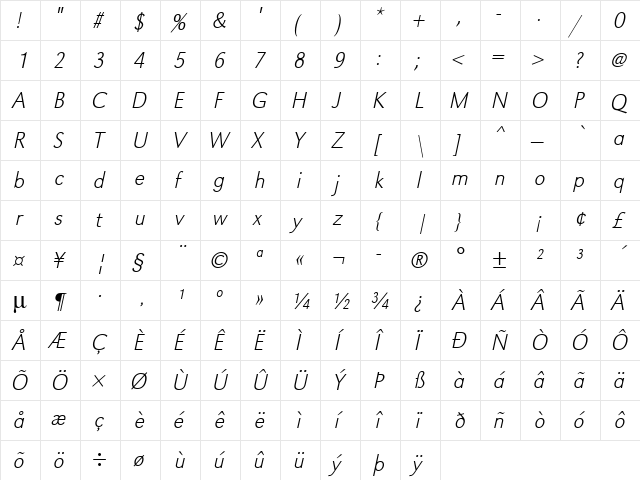
URWGroteskTExtLigNar Oblique
Design Context for URWGroteskTExtLigNar Typeface
URWGroteskTExtLigNar takes a clean, functional approach — its unadorned letterforms prioritise legibility and work reliably across screen and print environments. The slanted form adds forward momentum and visual energy.
Font Pairing: Works well alongside a characterful serif or display font that can carry the expressive load while URWGroteskTExtLigNar handles the functional copy.
Pro Tip: Pair URWGroteskTExtLigNar with a display or serif font for headlines — its neutral character makes it an excellent supporting player in complex typographic systems.